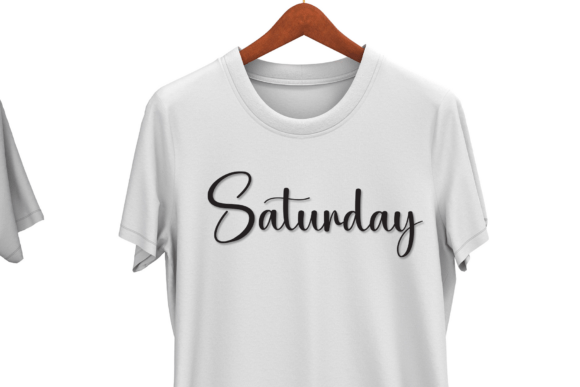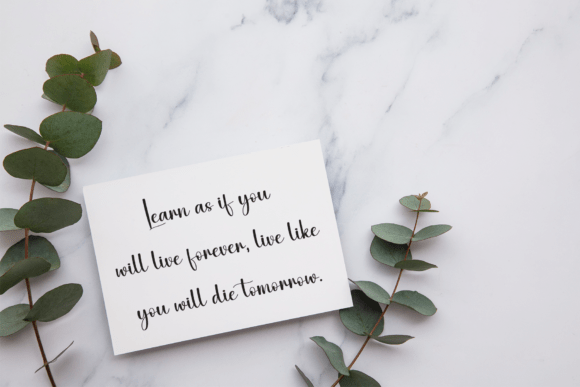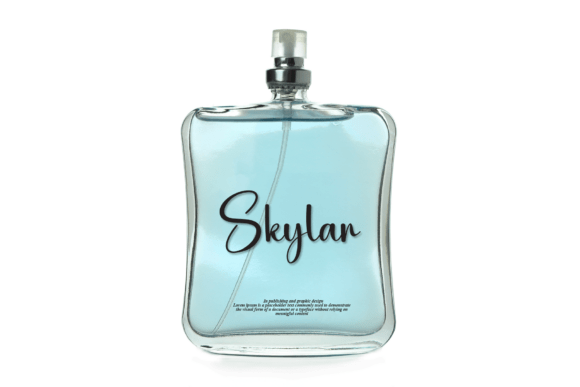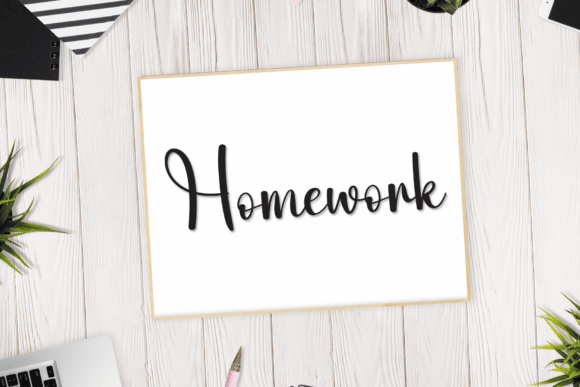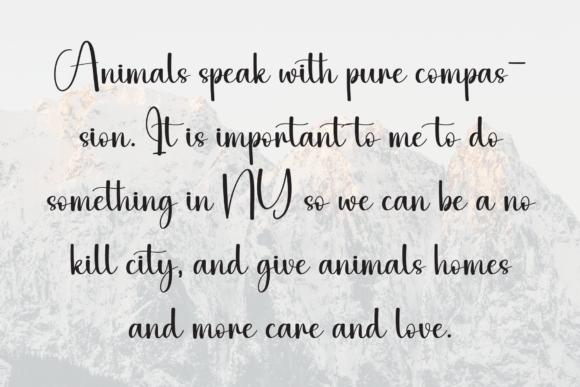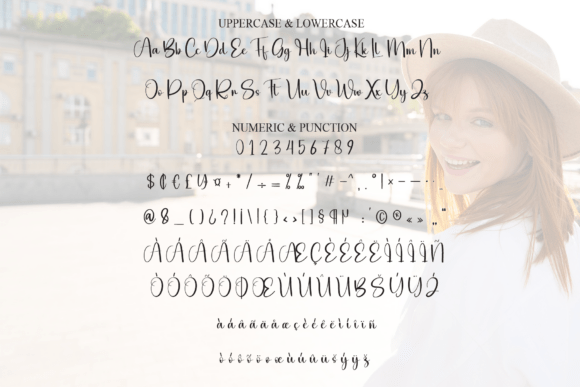
Introducing Beauty British Font: Elevate Your Designs with Elegance and Flair
In the world of typography, few fonts manage to capture the perfect blend of elegance, creativity, and modern sophistication. Beauty British Font is one such exceptional typeface that has been making waves in the design community. This stylish script font is not just a collection of letters; it’s an artistic statement that brings a touch of contemporary elegance to any design project. Whether you’re a professional designer, a crafty DIY enthusiast, or a social media influencer, Beauty British Font is about to become your go-to choice for creating visually stunning content.
The Artistry of Beauty British Font
Beauty British Font stands out with its fluid brush strokes, dynamic curves, and highly expressive letterforms. Each character is crafted to emulate the feel of hand-painted calligraphy but with a modern edge that sets it apart from more traditional script fonts. This unique blend of old-world charm and new-age style makes it incredibly versatile, suitable for a wide range of applications from luxury logos and wedding invitations to product packaging and social media graphics.
An example of Beauty British Font in use, showcasing its elegant and artistic flair.
Key Features of Beauty British Font
- Fluid Brush Strokes: The font’s fluidity gives it a natural, hand-crafted feel that is both eye-catching and engaging.
- Dynamic Curves: The dynamic curves add a sense of movement and energy to the text, making it perfect for designs that need to convey a sense of dynamism.
- Expressive Letterforms: Each letterform is designed to be highly expressive, allowing for a wide range of emotions and tones to be conveyed through your text.
- Modern Twist: While it pays homage to traditional calligraphy, the font also incorporates a modern twist that keeps it fresh and relevant.
One of the standout qualities of Beauty British Font is its incredible versatility. Here are just a few examples of how you can use it to elevate your designs:
- Logos: Create a memorable brand logo that exudes elegance and sophistication.
- Invitations: Whether it’s a wedding, birthday, or corporate event, this font adds a touch of class to any invitation.
- Packaging: Stand out on store shelves with product packaging that features beautiful, eye-catching typography.
- Social Media Graphics: Enhance your social media presence with stunning graphics that capture attention and convey your message in style.
Why Choose Beauty British Font?
With so many fonts available, why should Beauty British Font be your top choice? The answer lies in its perfect blend of artistic flair, contemporary elegance, and versatility. Here are a few compelling reasons:
- Unique Aesthetic: It offers a unique aesthetic that is hard to find in other fonts, making your designs instantly recognizable.
- Time-Saving: With its comprehensive set of characters and ligatures, you can create beautiful text quickly and efficiently.
Beauty British Font is more than just a typeface; it’s a design statement that can elevate your projects to new heights of elegance and creativity. Its unique blend of fluid brush strokes, dynamic curves, and expressive letterforms, combined with its modern twist, makes it an invaluable tool for designers and crafters alike. Whether you’re creating logos, invitations, packaging, or social media graphics, this font delivers both visual impact and versatility. Add Beauty British Font to your design arsenal today and discover a world of creative possibilities at your fingertips.